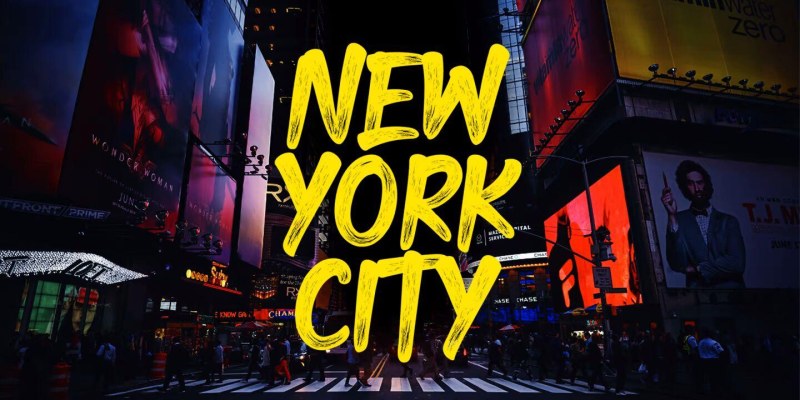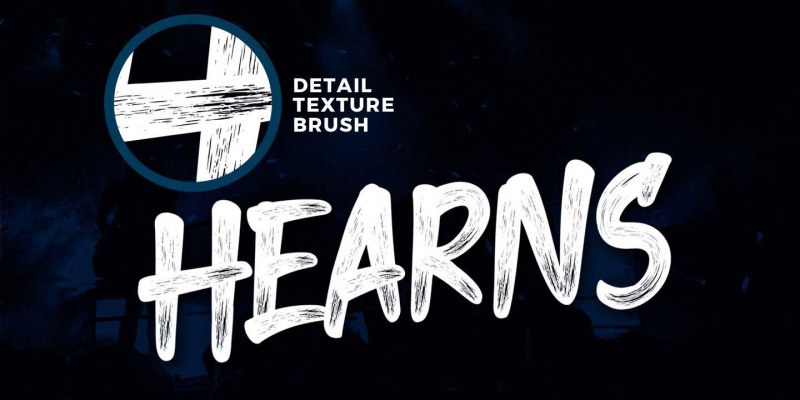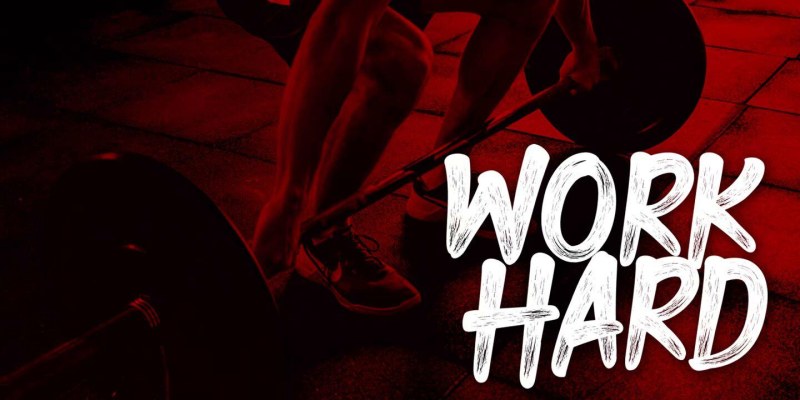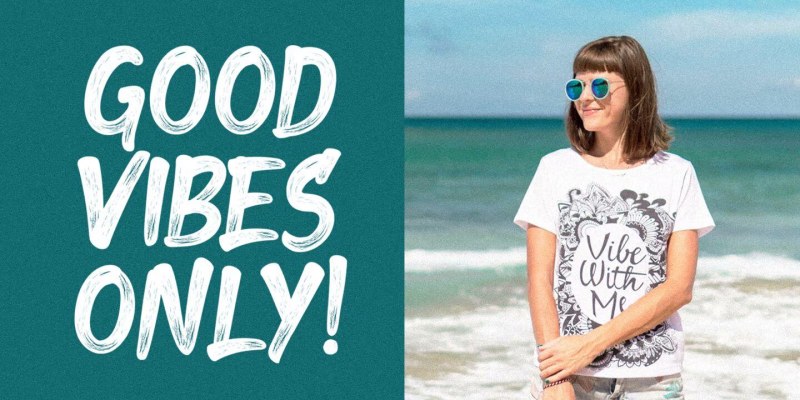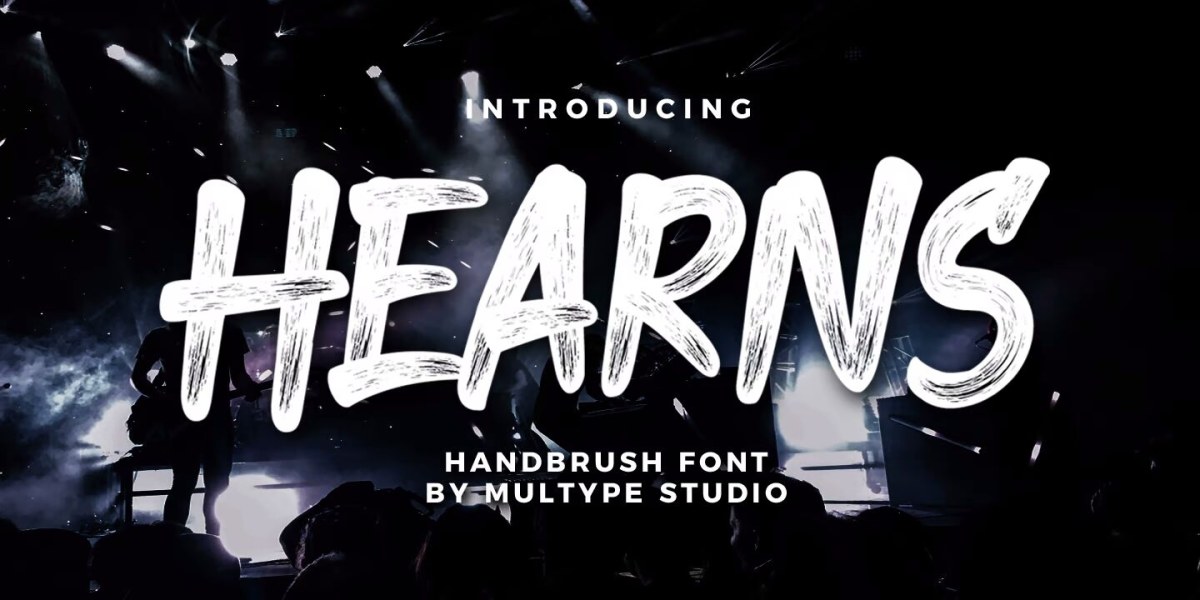
Hearns Font
Hearns is a handbrush font with authentic textures. This font would perfect for logos, branding, product designs, product packaging, photography, watermark, social media posts, advertisements, invitation, stationery, labels, logos, magazines, books, greeting / wedding cards, fashion, make up, and etc.
Hearns Font is a Brush Fonts font that brings a professional and versatile look to your projects. Hearns is a handbrush font with authentic textures.